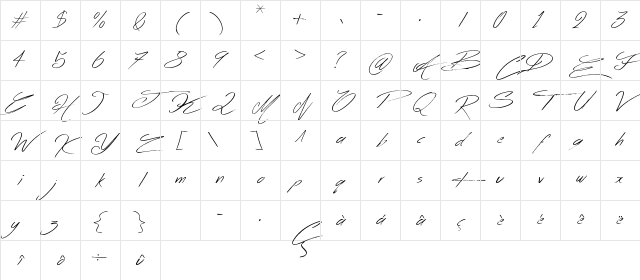
Across the Road Regular
Design Context for Across the Road
Across the Road is a composed and adaptable typeface that performs quietly and consistently across a wide range of design contexts.